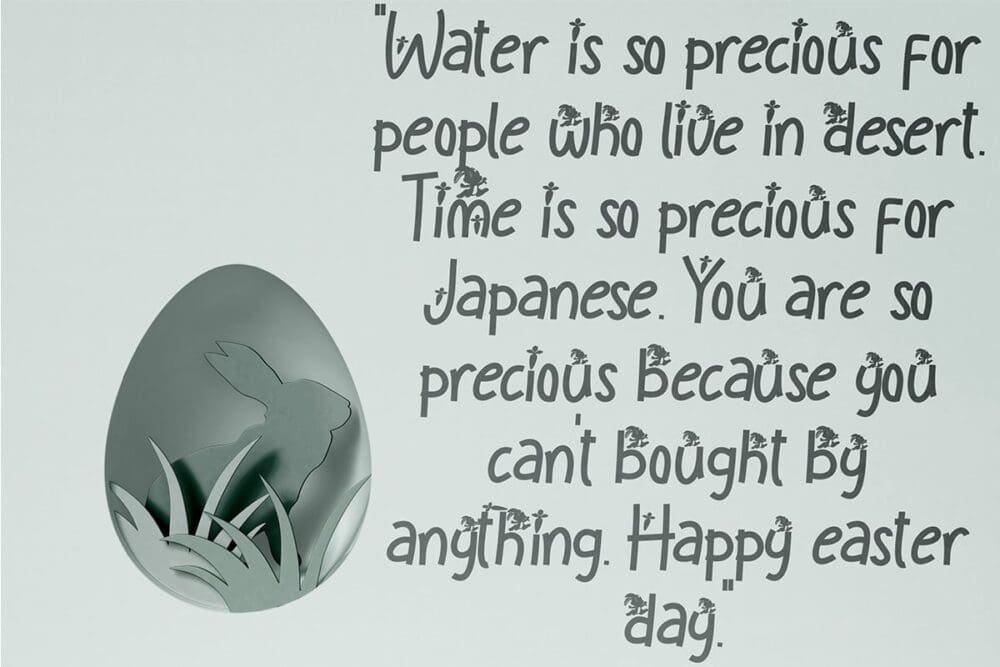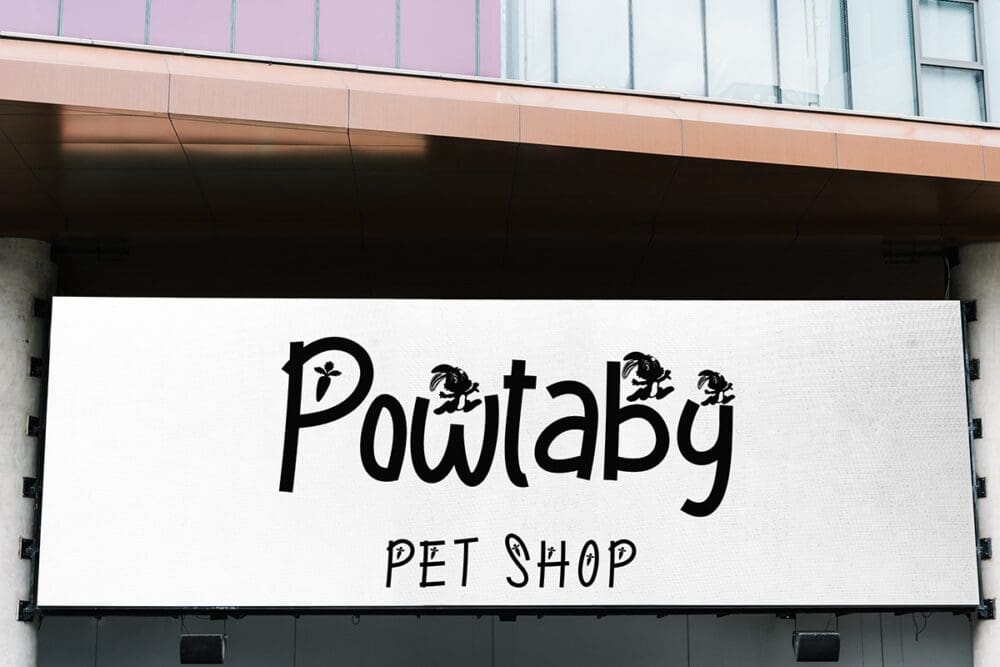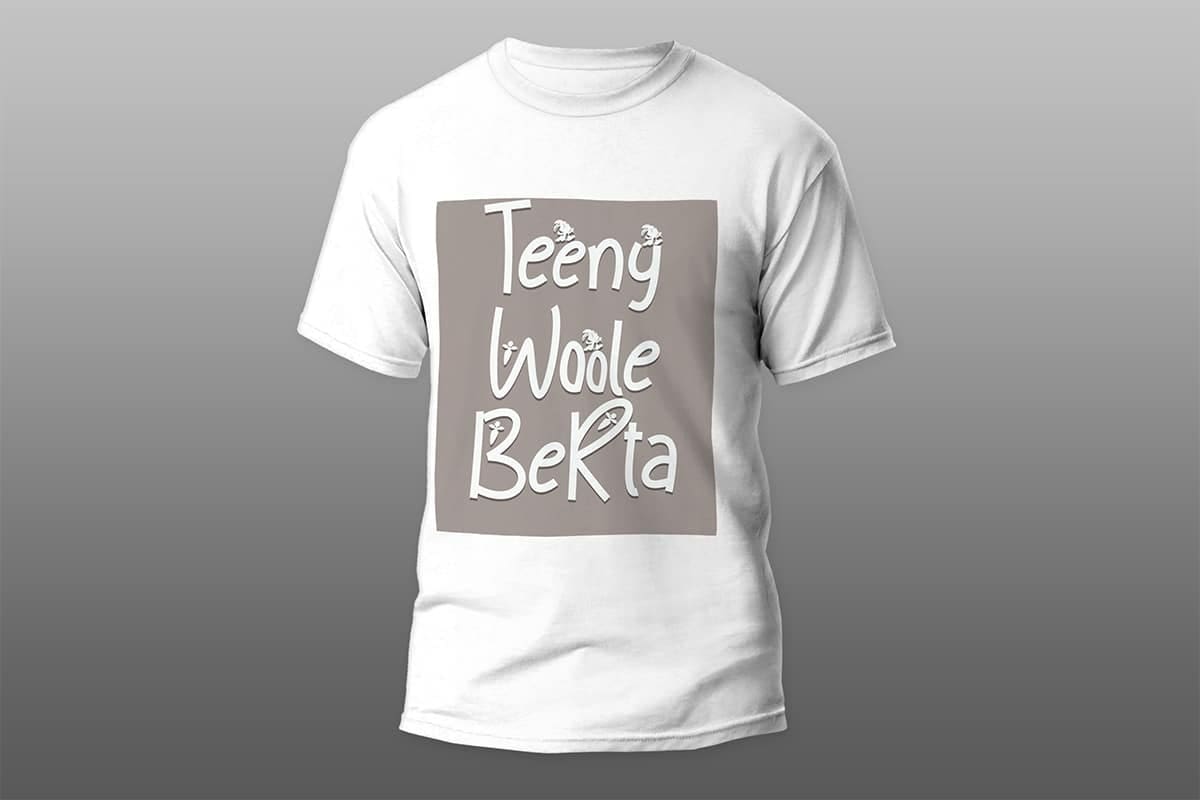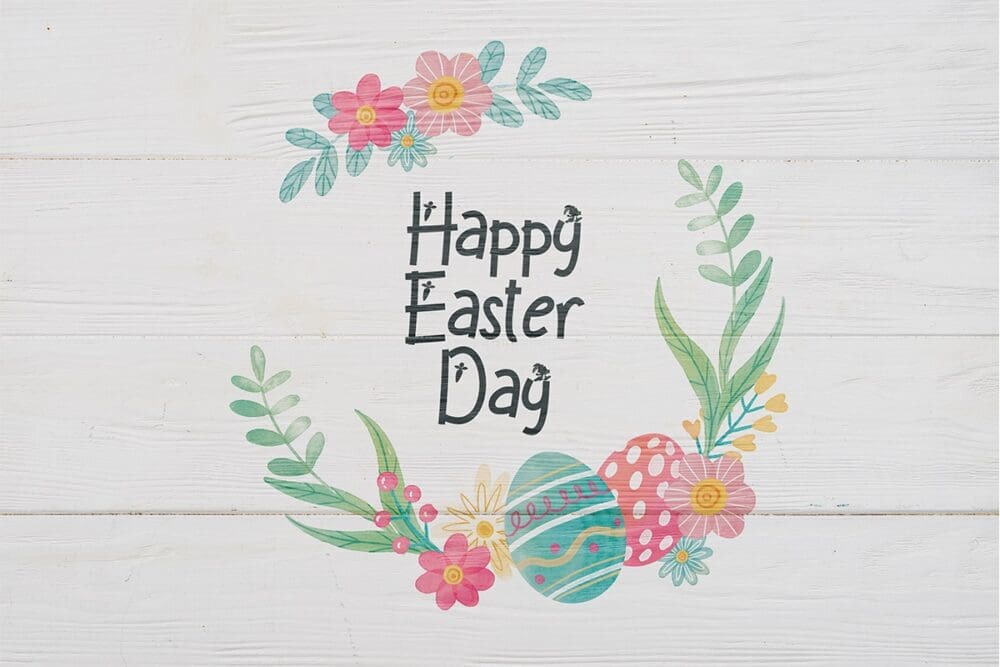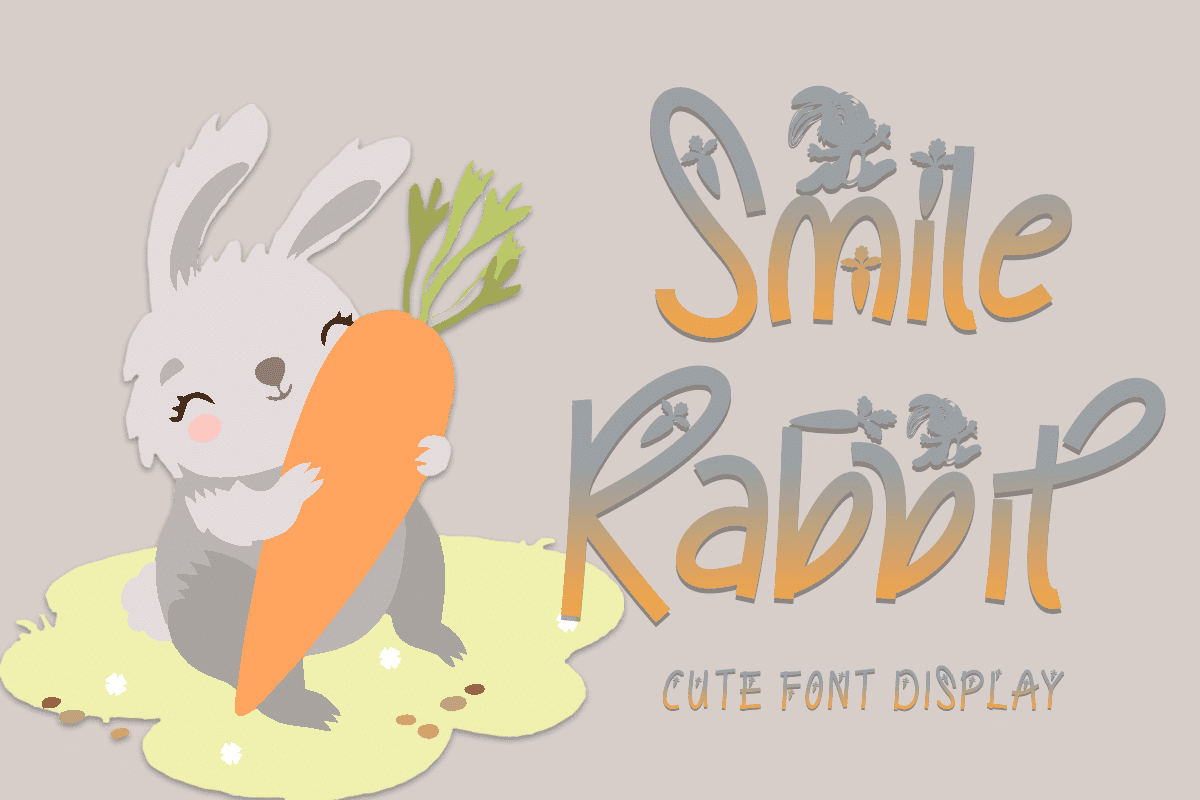
Smile Rabbit Font
Smile Rabbit is a unique and beautiful display font. Whether you are using it for cartoon-related designs, children’s games, quotes, titles, brand names, book covers, posters, or just any creation that requires a touch of beauty, this font is a great choice.